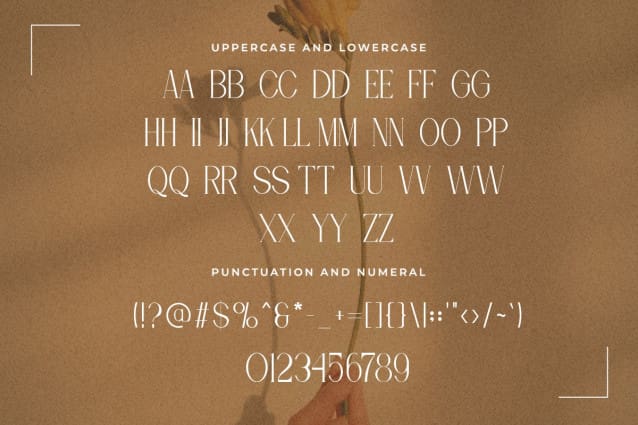
Queen Classy Serif Font
Queen Classy Serif Font, provides a new look that is different from the general serif fonts. The characteristics of a serif font that has an additional serif remain in this font, but the existing serif follows the actual font shape. Queen Classy Serif Font that looks clean, simple, and upright. It can also be used as a modern font.
Queen Classy Serif Font has many matches when combined with the product to be used. Fashion brand tags such as clothing will be compatible if applied with this type of font. There is no need to add excessive pictures and ornaments because Queen Classy Serif Font has presented its identity where a simple yet classic impression radiates. Queen Modern Classy Serif Font is included in the list of typefaces that can be used as a digital font and print fonts. This font can be used as a title that appears first in intro videos that catch the viewer’s attention at a first impression.
Posters and magazine covers are especially appropriate when using the Queen Modern Classy Serif Font. This is because even though this font is a serif typeface, it can be seen clearly and can be distinguished by each letter. So this font is included in the legible font.